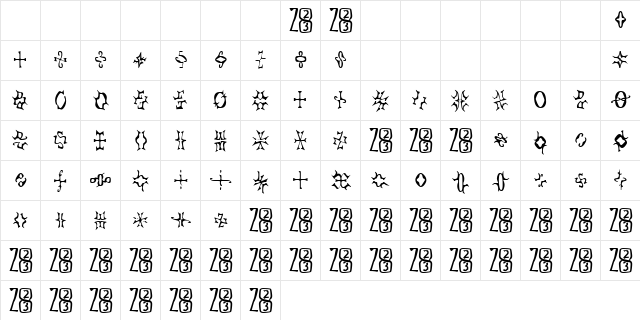
Zone23_foopy2 Normal
Design Context for Zone23_foopy2 Typeface
Zone23_foopy2 is a composed and adaptable typeface that performs quietly and consistently across a wide range of design contexts.